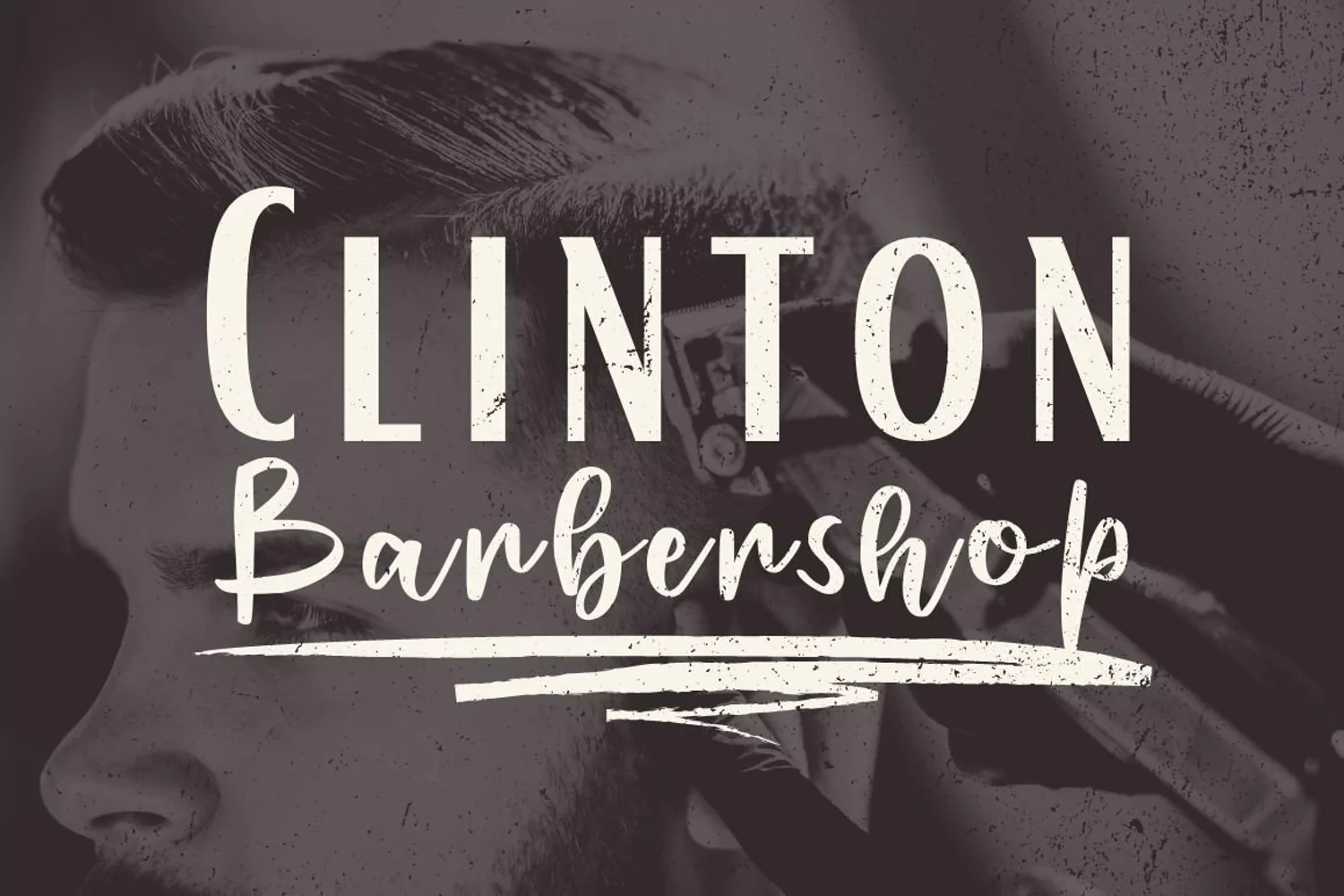
Midlake is a bouncy handwritten script font!
This font is perfect for quotes, shirt designs, websites, branding, children's designs, blogs, logos, invitations and more!